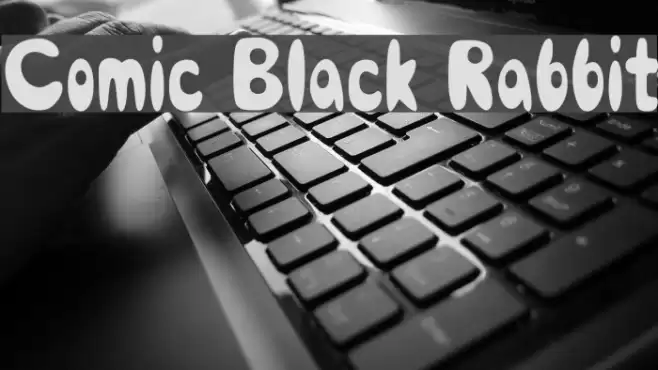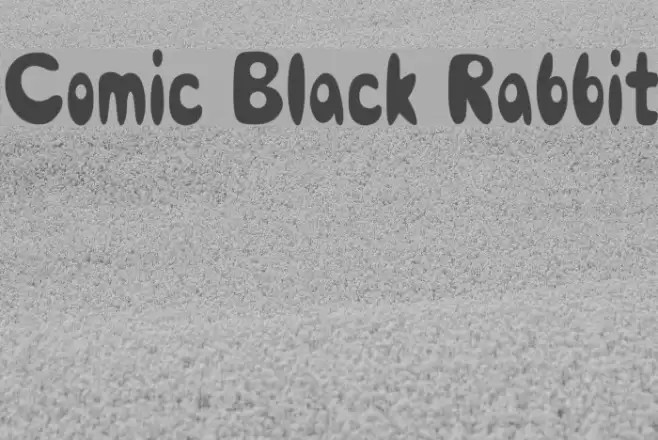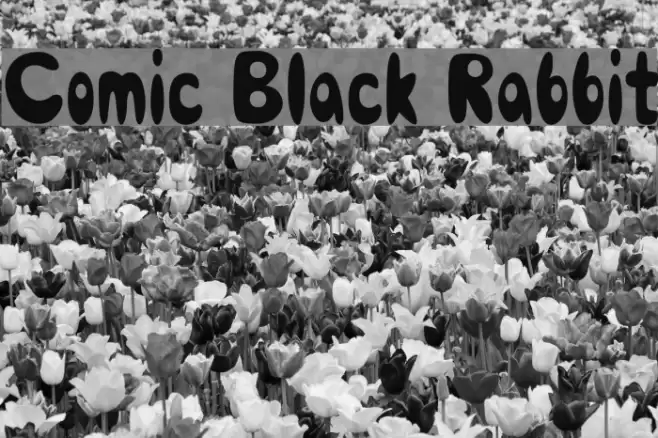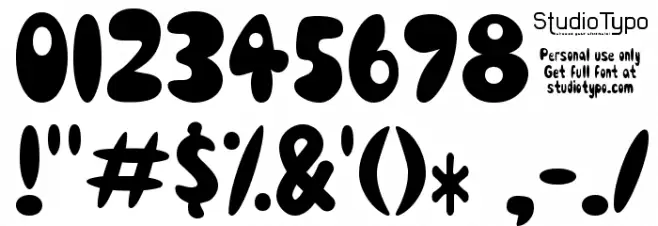
Comic Black Rabbit Font
Comic Black Rabbit Description
This playful and bold font features thick, rounded characters that exude a sense of fun and whimsy. The letters are slightly irregular, adding a hand-drawn feel that enhances its casual and approachable style. The uppercase and lowercase letters maintain a consistent weight, contributing to a cohesive and unified appearance. The numbers and special characters follow the same design principles, ensuring versatility across various uses. Its bold presence makes it ideal for projects that require a strong visual impact, while its rounded edges soften the overall look, making it suitable for a wide range of creative applications.
A playful, bold font with thick, rounded characters and a hand-drawn feel from Easter fonts.
- Proposed Projects: Ideal for children's books, comic strips, playful branding, and casual posters.
- Overall Style: Playful, Casual